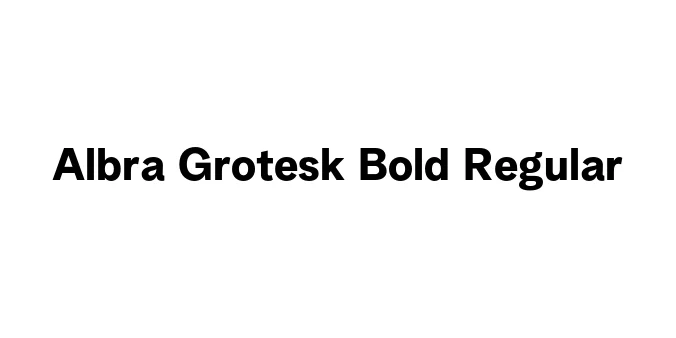
Albra Grotesk Bold Regular
Designed by Valerio Dell’Edera (BumbumType)
Albra Grotesk is a contemporary sans-serif typeface designed to bridge the gap between classic grotesque structures and modern versatility. Developed as part of the larger Albra collection, it features clean lines, high legibility, and a sophisticated character that works seamlessly across both print and digital media. Its architecture is rooted in traditional 19th-century grotesques but refined with a precision that meets 21st-century standards.
The Bold Regular weight specifically emphasizes strong, geometric forms with subtle humanist touches that provide a warm, approachable feel despite its structural rigor. This font is particularly effective for high-end branding and editorial design where a balance of authority and elegance is required. Its wide range of applications makes it a staple for designers looking for a timeless yet fresh aesthetic.
Albra Grotesk Bold Regular Best Uses
Creating impactful visual identities and professional logos.
Perfect for headlines and pull quotes in magazines or book covers.
Highly legible for UI elements and digital hero sections.
Delivers a strong visual presence for posters and marketing assets.